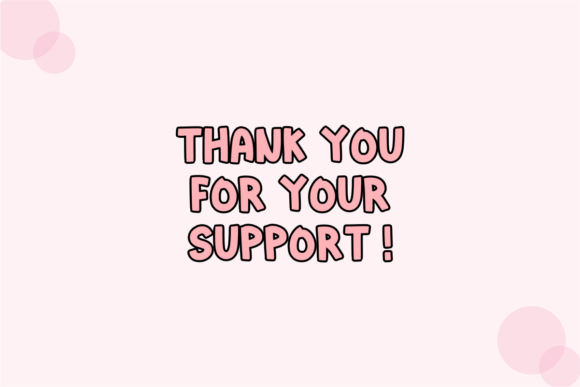
Introduction to Bright Academy Font Font
Fonts play a crucial role in design, and the Bright Academy Font font is a typeface that brings both character and versatility to any project. Whether you’re working on a branding project, a website, or a print design, the Bright Academy Font font offers a unique style that can elevate your work.
| 📌 Font Name | Bright Academy Font |
| 👤 Author | Sahira Studio |
🎓 Bright Academy – Playful, Bold & Cheerful Kids Display Font 🎓 Bring a burst of energy and joy to your educational projects with Bright Academy.
This font is a vibrant, chunky display typeface designed specifically to capture the imagination of children and the hearts of teachers Featuring soft, rounded edges and a friendly, hand-drawn feel, it radiates warmth and positivity in every character.
Key Features of Bright Academy Font Font
Why Choose Bright Academy Font Font?
The Bright Academy Font font is more than just a typeface – it’s a design tool that helps you communicate your message with style and clarity. Its unique character set and versatile design make it suitable for a wide range of applications, from elegant invitations to bold headlines.
With its carefully crafted letterforms and balanced proportions, the Bright Academy Font font ensures readability and visual appeal across all mediums.
What makes Bright Academy Font font special?
The Bright Academy Font font stands out with its unique design, exceptional readability, and versatility across various design applications.